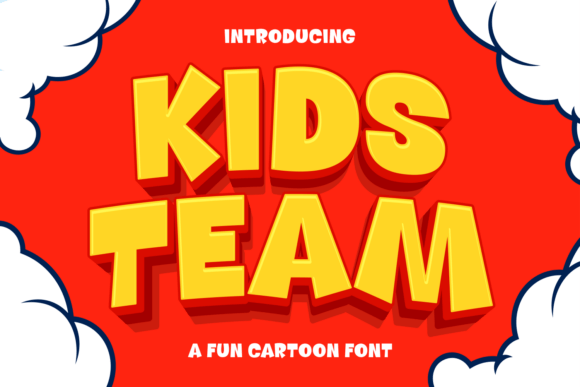
The Perfect Font for a Superhero Moment
Remember that moment when you were a kid, surrounded by colorful comic books, and the excitement of creating your own superhero alter ego? The world of imagination was limitless, and the fonts of our favorite comic books seemed to come alive, transporting us to a world of adventure and fun.
Fast forward to today, and we bring you the “Kids Team Font”, a display font that captures the essence of that magical moment. This enchanting font is perfect for designers who want to add a touch of whimsy and playfulness to their projects. With its cheerful and impactful aesthetics, the “Kids Team Font” is ideal for book cover designs, title fonts, and branding purposes. Its clean design and unique summer vibe make it a valuable addition to any designer’s toolkit, allowing them to create projects that are fresh, authentic, and full of joy.
Kids Team Font Key Features
- Font Family: Kids Team Font is a custom-designed font family, suitable for use in various applications such as logos, headings, and body text.
- Unique Characteristics: The font features a playful, child-friendly design with rounded edges and friendly letterforms, making it perfect for kids-related content and educational materials.
Kids Team Font Review
I recently had the chance to work with the Kids Team Font, and I’m here to share my honest thoughts on this font.
✨ The font’s playful and fun personality really shines through, making it perfect for kids-related projects or any design that needs a touch of whimsy. The letters are rounded and easy to read, even for young children.
- ✨ The font is highly customizable, allowing designers to adjust the size, color, and spacing to suit their needs.
- ✨ The font includes a wide range of punctuation and special characters, making it easy to use in a variety of contexts.
⚠️ One of the main limitations of the Kids Team Font is its limited character set. While it’s perfect for basic text, it may not be suitable for more complex or technical content.
- ⚠️ The font may not be suitable for large blocks of text, as it can become difficult to read at larger sizes.
- ⚠️ The font is not designed for use in formal or professional contexts, so it may not be the best choice for certain types of projects.
The Kids Team Font is a fun and playful font that’s perfect for kids-related projects or any design that needs a touch of whimsy. While it has some limitations, it’s a great choice for designers who want to add a bit of personality to their work.
For best results, use “Kids Team Font” for titles, headings, and short paragraphs. It’s perfect for kids’ party invitations, school projects, and sports team logos. You can also use it for creating engaging social media graphics and promotional materials.
Alternatives to Kids Team Font
Comic Sans MS is a sans-serif font designed by Vincent Connare in 1994. It is often used in informal settings, such as children’s books, educational materials, and websites. When to use: This font is suitable for casual, playful designs where a friendly and approachable tone is desired. Comparison: Comic Sans MS has a more rounded and cursive feel compared to Kids Team Font, making it more suitable for designs that require a softer, more childlike appearance.
Q: Can I customize the Kids Team Font for my specific design project?
Yes, the Kids Team Font is a fully editable OpenType font, allowing you to access advanced features such as ligatures, swashes, and stylistic sets. You can use font editing software or design applications that support OpenType to customize the font to suit your project’s needs.